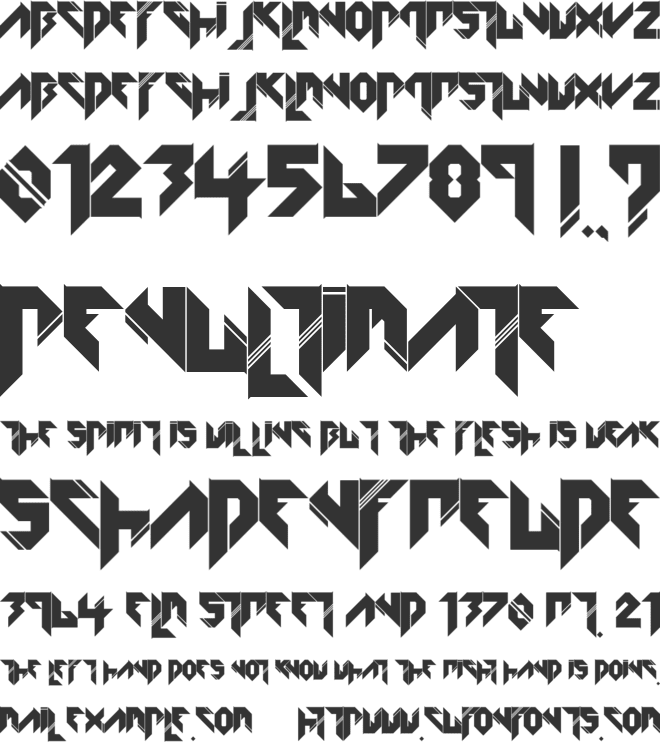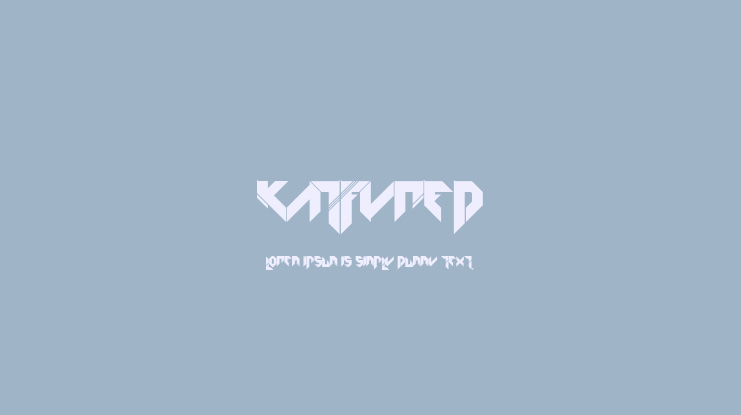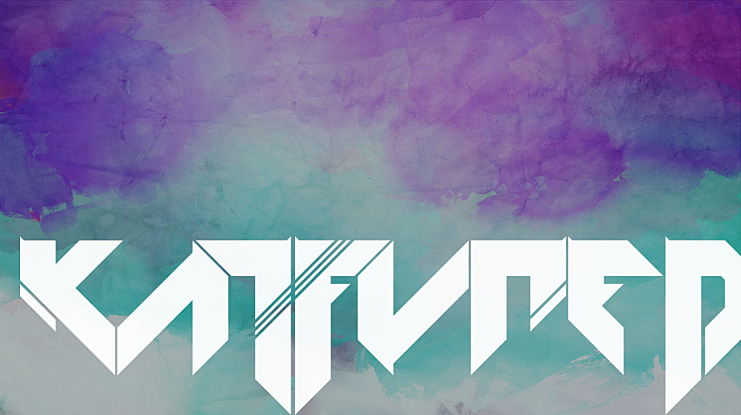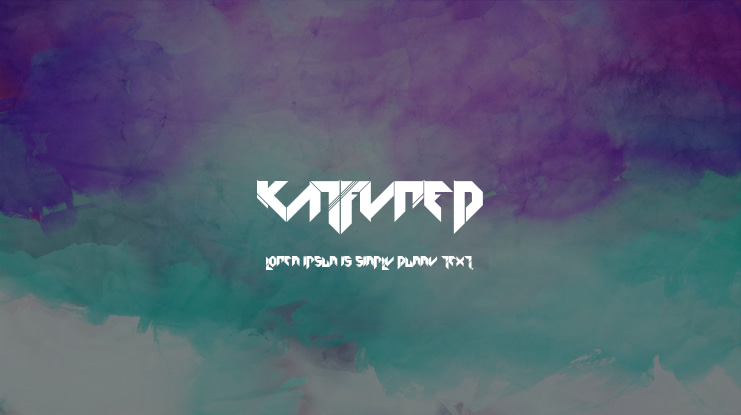
KATFYRED Font
Avendrakon
This is a font based on dubstep producer/DJ KATFYR's logo. Made with FontStruct's FontStructor.
10/14/2012: Fixed some obvious design mistakes I made and threw in some numbers. Cheers!
12/14/2013: Now features kerning pairs! (Finally got FontCreator and did it)
2/1/2014: Some changes, improved kerning, changed the 4 (finally)